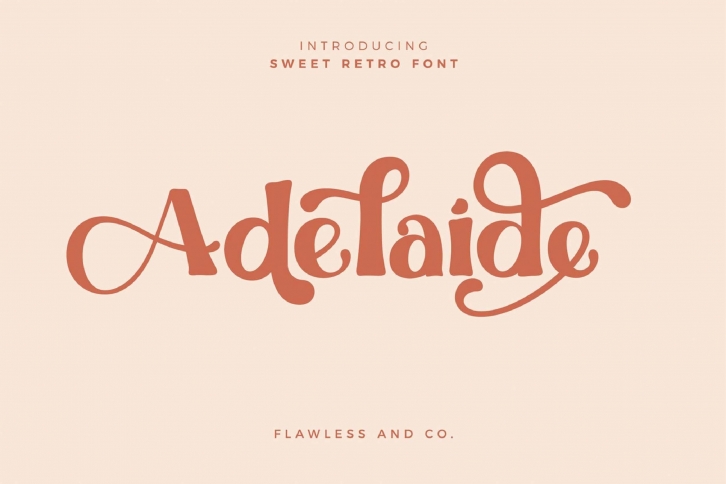
Adelaide is a fun, and cute retro-style display font. Whether you are using it for cartoon-related designs, children games, quotes, titles, brand names, book covers, posters, or just any creation that requires a touch of joy, this font is a great choice.